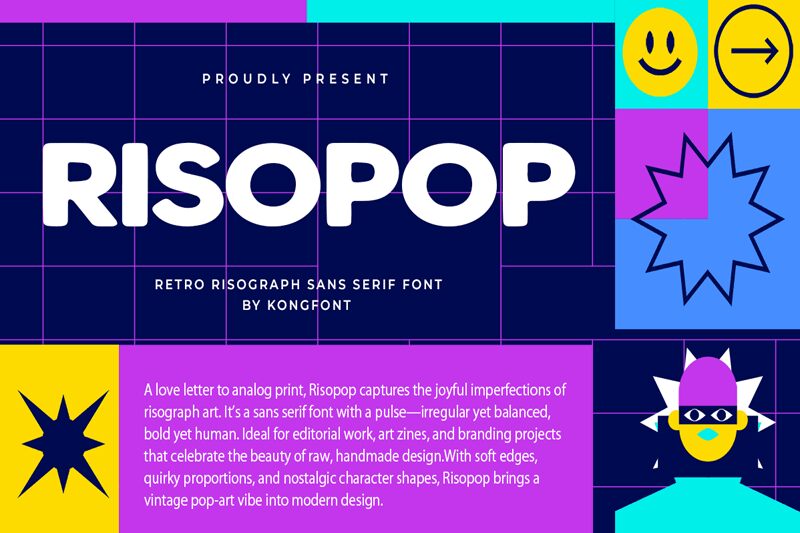
Risopop font is a free sans serif display font created by Kong Font with clean geometric shapes. The font is inspired by Risograph colored printing that gives a new life for old, vintage, especially mid-century design elements. Moreover, hidden in the name and design of the font is a perceptive wink to pop art. It is easy to use, and the appealing individual letters create monuments without overshadowing the designed content.
The font will stand out in poster designs, websites, food package design, book covers, album covers, or postcards, and can benefit from any branding project. You can also use it to decorate your digital products or in the infographics of your scientific research.